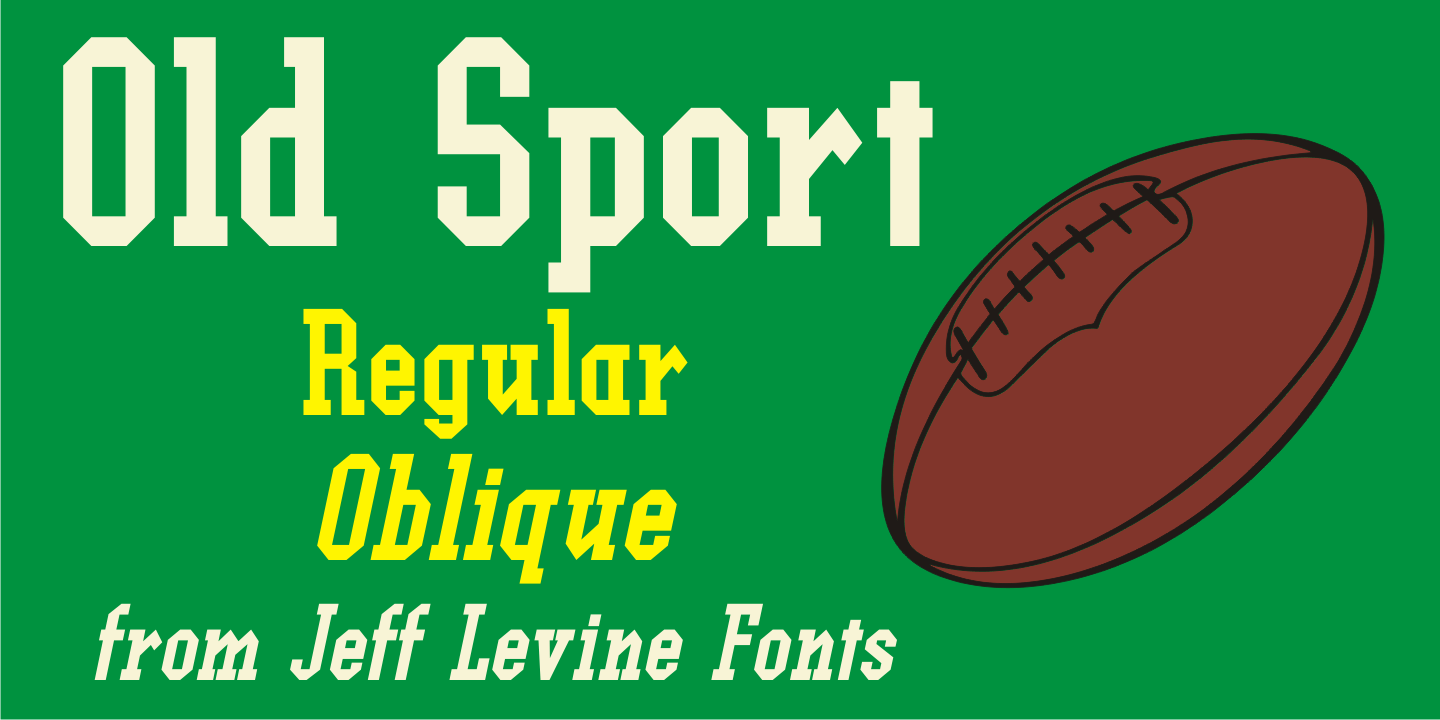
Old Sport
The 1930s era French textbook on lettering "100 Alphabets Publicitaires déssinés par M. Moullet" featured a hand lettered chamfered alphabet with slab serifs reminiscent of sports lettering. Although intended for advertising and signage inspiration, only a partial lower case was illustrated along with the capitals and no numbers or other characters existed. These had to be created from scratch.
The finished result is not only a bit of classic lettering from the past, but the font also doubles as a typeface with a sports look and feel.
Old Sport JNL is available in both regular and oblique versions.